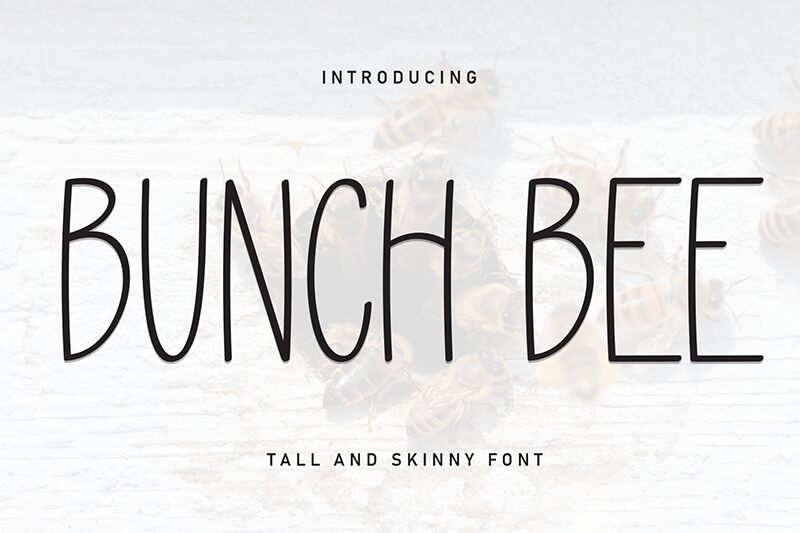
Bunch Bee
Bunch Bee font, expertly crafted by Andi Moz, exudes a light handwritten style with a distinctive condensed form. Casual and friendly, this hand-drawn typeface carries a charming vibe that effortlessly finds applications in various modern designs. It is absolutely versatile with its pleasing and neat aesthetic.
This free handwritten font suits labels, social media posts, website headings, app interfaces, marketing ads content. Implying its versatility further are print designs and branding materials as well as business cards and wedding invitations where friendliness is preferred.